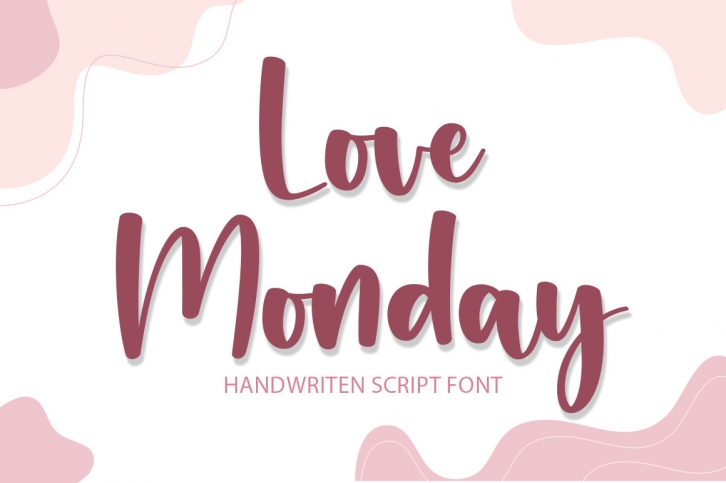
Love Monday is a relaxed and trendy handwritten font. It has beautiful and well-balanced characters and as a result, it matches a wide pool of designs. Add it to your most creative ideas, and notice how it makes them come alive!